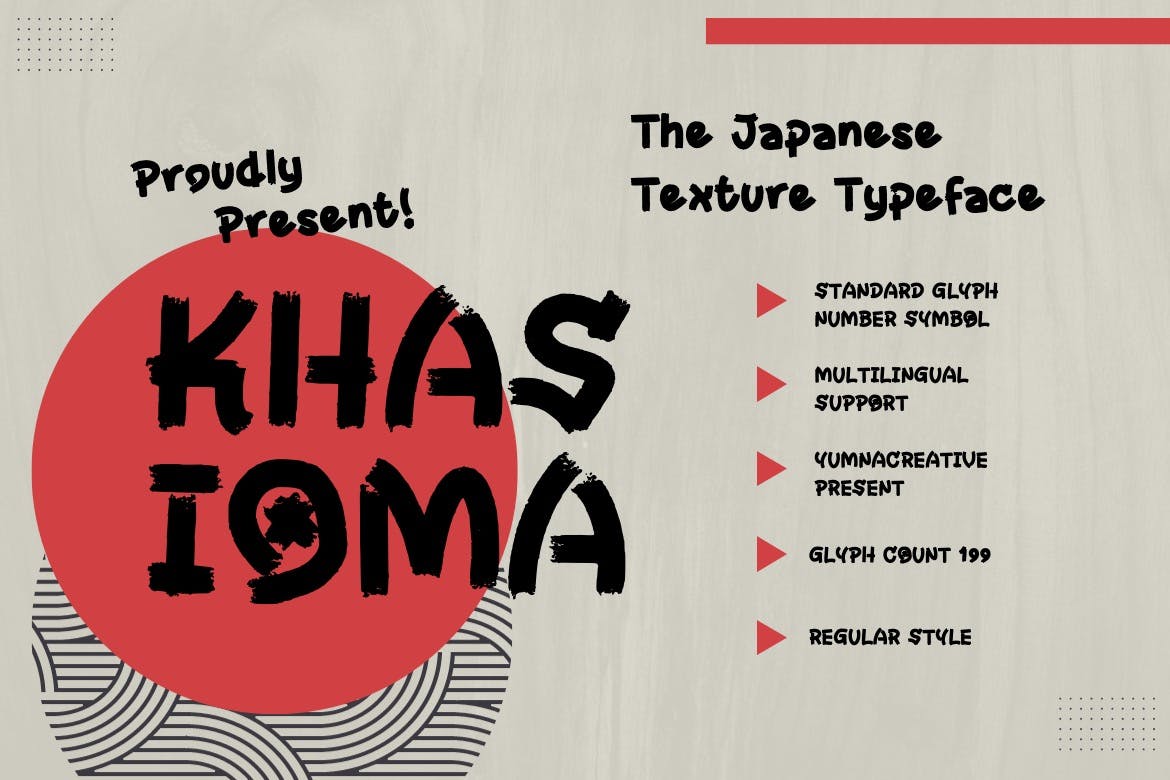
Khasioma - Japanese Texture Font
The Khasioma - Japanese Texture Font is perfect for anime branding, manga covers, Japanese gaming interfaces, Asian fusion restaurant menus, traditional craft packaging, modern Japanese art exhibitions, cultural festival posters, and contemporary zen design projects.
What makes Khasioma - Japanese Texture Font so exciting is its innovative fusion of traditional Japanese aesthetics with modern textural elements that create a truly unique visual experience. This captivating typeface combines the elegance of Japanese design principles with contemporary texture techniques, featuring intricate surface details that evoke traditional Japanese materials like washi paper, bamboo, and weathered stone. The font's sophisticated texture work creates depth and visual interest while maintaining the clean, harmonious balance that defines Japanese typography. Its distinctive character makes it perfect for brands seeking to blend Eastern cultural heritage with modern design sensibilities, offering authenticity without sacrificing contemporary appeal.
The Khasioma - Japanese Texture Font family includes versatile variations that showcase different aspects of Japanese textural artistry. The collection typically features multiple texture styles from subtle paper grain to bold weathered effects, each maintaining the distinctive Japanese aesthetic philosophy. Many versions include alternative characters with enhanced textural details, decorative elements inspired by traditional Japanese patterns, and comprehensive character sets supporting both Western and Eastern languages for international design applications.
When seeking authentic Japanese texture typography solutions, Khasioma - Japanese Texture Font Free Download emerges as the definitive choice for designers who want to incorporate genuine Eastern design philosophy with contemporary textural innovation. This exceptional typeface transforms standard text into sophisticated visual communications that celebrate the intersection of traditional Japanese culture and modern design technology.
The font's remarkable adaptability works beautifully across digital and print platforms, from modern web applications to traditional print media. Its carefully crafted textural elements maintain visual clarity at all sizes while preserving the distinctive Japanese aesthetic that makes it so appealing to global audiences seeking cultural authenticity.
Professional designers and creative agencies worldwide trust this innovative texture font for projects requiring sophisticated Japanese design elements and contemporary appeal. Whether developing brand identities for modern Asian businesses, creating promotional materials for cultural institutions, or designing digital content for entertainment properties, this font delivers the perfect combination of traditional Japanese beauty and cutting-edge textural design.